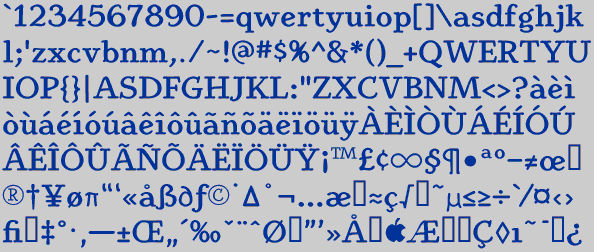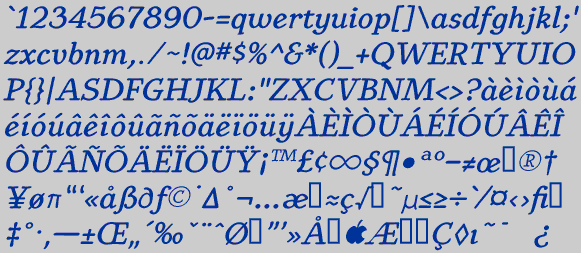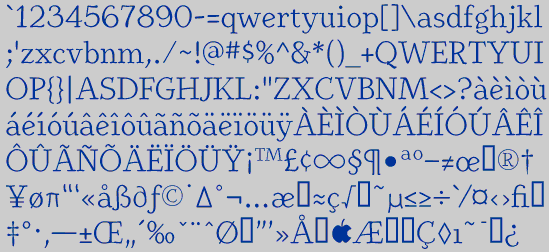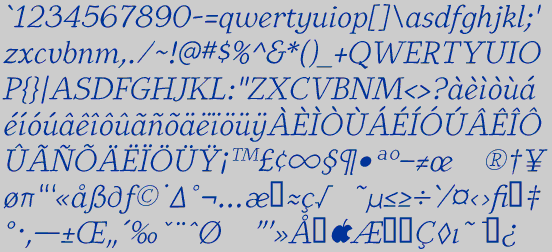
One of the neat features of Fontographer is its ability to blend or interpolate fonts. If the points that make up the outlines of two fonts have a one-to-one correspondence, Fontographer can interpolate between those two paths. It takes a long while to set up the one-to-one correspondence, but once this boring work is completed, the resulting 'cross-breeding" can be fascinating.
I created a group of hybrid text fonts are blends of some of my text-like fonts. The four base fonts that form the parents of the group are BetterTypeRight, Euroika, Ingriana, and KampFriendship. To get these fonts ready for blending, some of the characters had to be changed; this was especially true for those involving the italics of Ingriana.
The four parent fonts are very different in their characteristics, and I think yield interesting offspring. BetterTypeWrite is semi-informal, but with almost a typewriter look, Euroika is a decorative font with a great deal of contrast, Ingriana is a casual and unusual text font, and KampFriendship is almost a handwritten font.
The Youbee (which stands for UB, ultimate blend) is the grandchild of the four original fonts. It you look at it carefully, you should see bits and pieces of all four original fonts.
(Youbee is the typeface I use most often. I like it better for text purposes than any other typeface I have designed.)